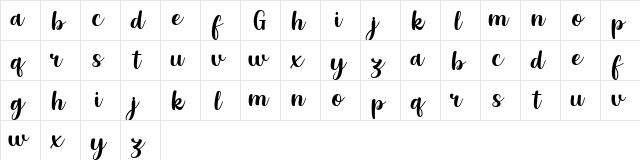
Grestal Script DEMO Regular
Design Context for Grestal Script DEMO Typeface
Grestal Script DEMO brings a calligraphic fluidity to the page — its connecting strokes and expressive curves give it an unmistakably human quality.
Font Pairing: Combine Grestal Script DEMO with a simple geometric sans for maximum contrast — the tension between flowing curves and clean structure is a classic typographic pairing.
Pro Tip: Pair Grestal Script DEMO with a clean sans-serif for supporting text. The contrast between fluid script and geometric structure creates an elegant typographic hierarchy.